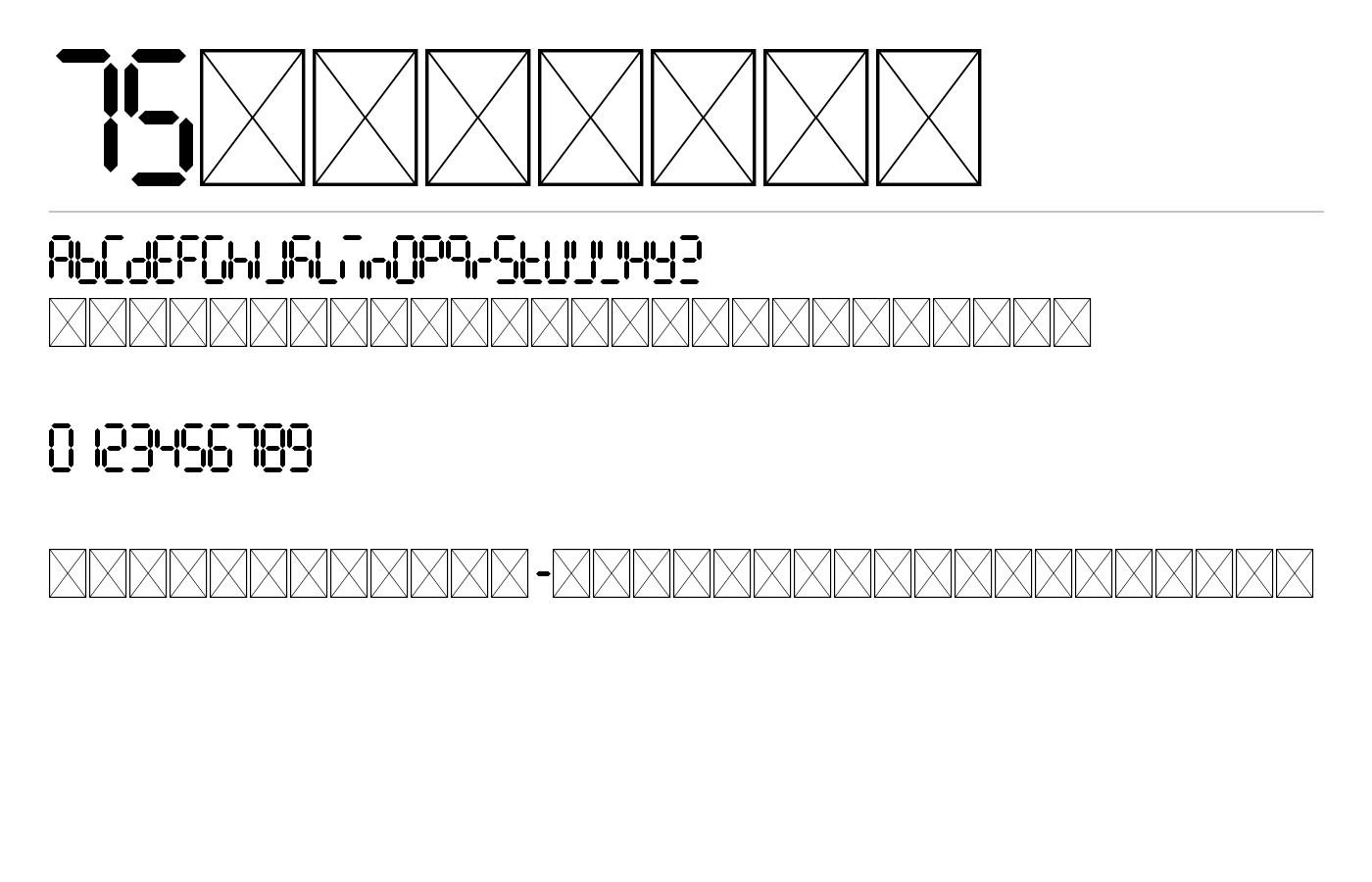
7Segments Font is a unique sans serif typeface inspired by digital seven-segment displays, featuring geometric, blocky letterforms made of disconnected segments. Its monospaced, technical look evokes a retro-futuristic and electronic vibe, making it ideal for digital interfaces, tech branding, gaming, and data visualization that require a clear, digital-inspired style. This font stands out with its highly legible, minimalist design perfect for headlines or displays where a modern, tech-savvy impression is desired.
7Segments Font
About 7Segments Font
| Font family | 7Segments Font |
| Designer | rikyozone |